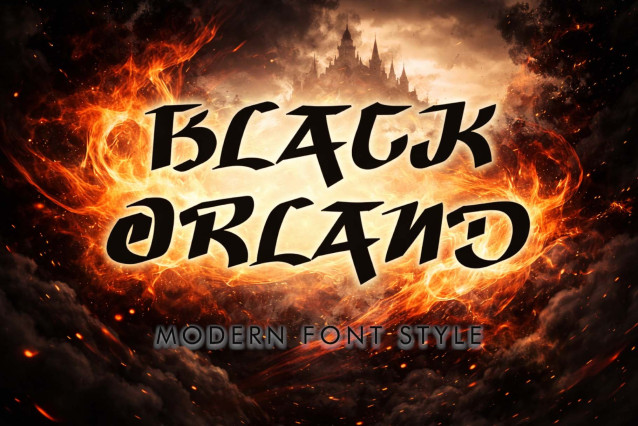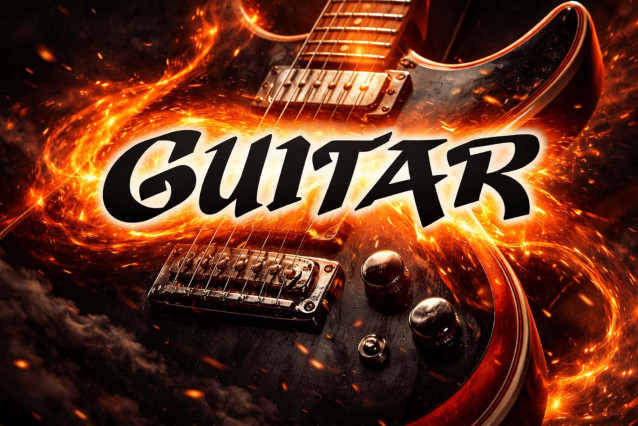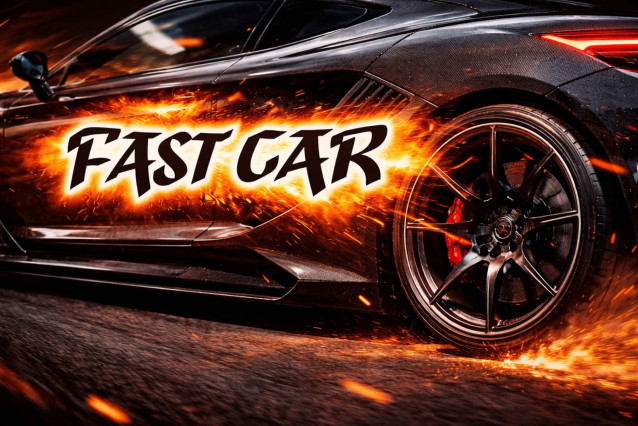
Black Orland Font
Summon the epic power of legend with Black Orland, a modern font style designed for high-fantasy storytelling and dramatic branding. This bold, hand-drawn display typeface features sharp, rhythmic “chisel-tip” strokes and aggressive terminals that evoke ancient runes and mystical scrolls. With its high-contrast “overgrown” silhouette and “grimdark-heroic” soul, Black Orland is the premier choice for cinematic movie posters, independent RPG game titles, heavy metal album covers, and high-impact “battle-born” social media headers.